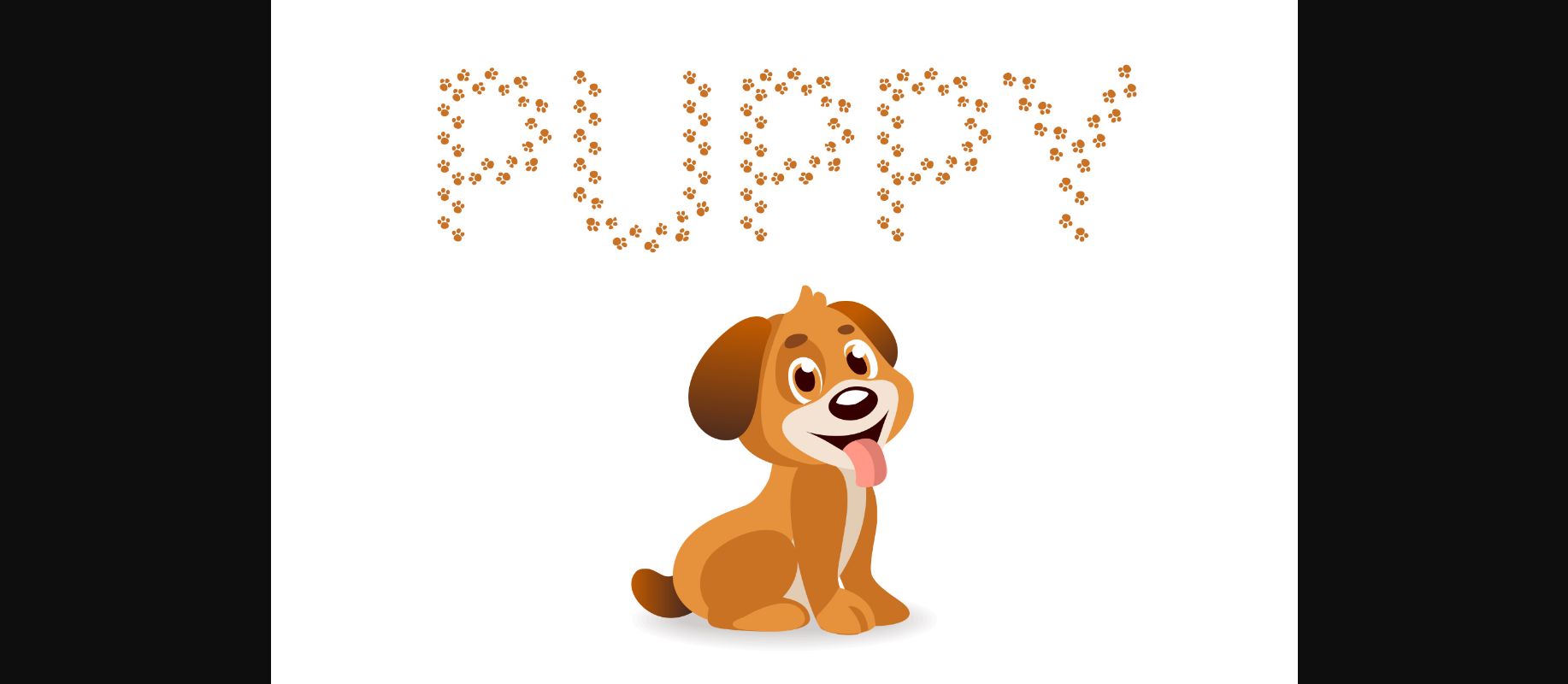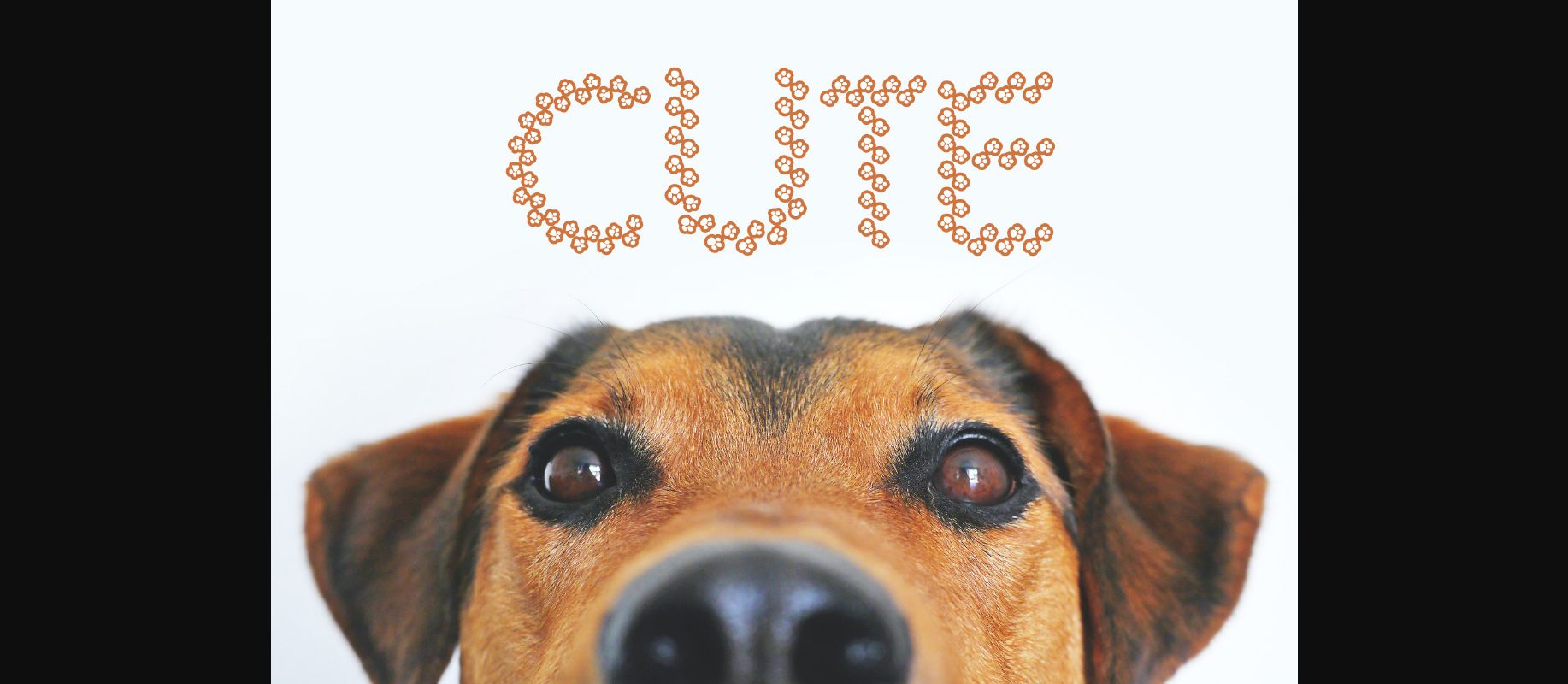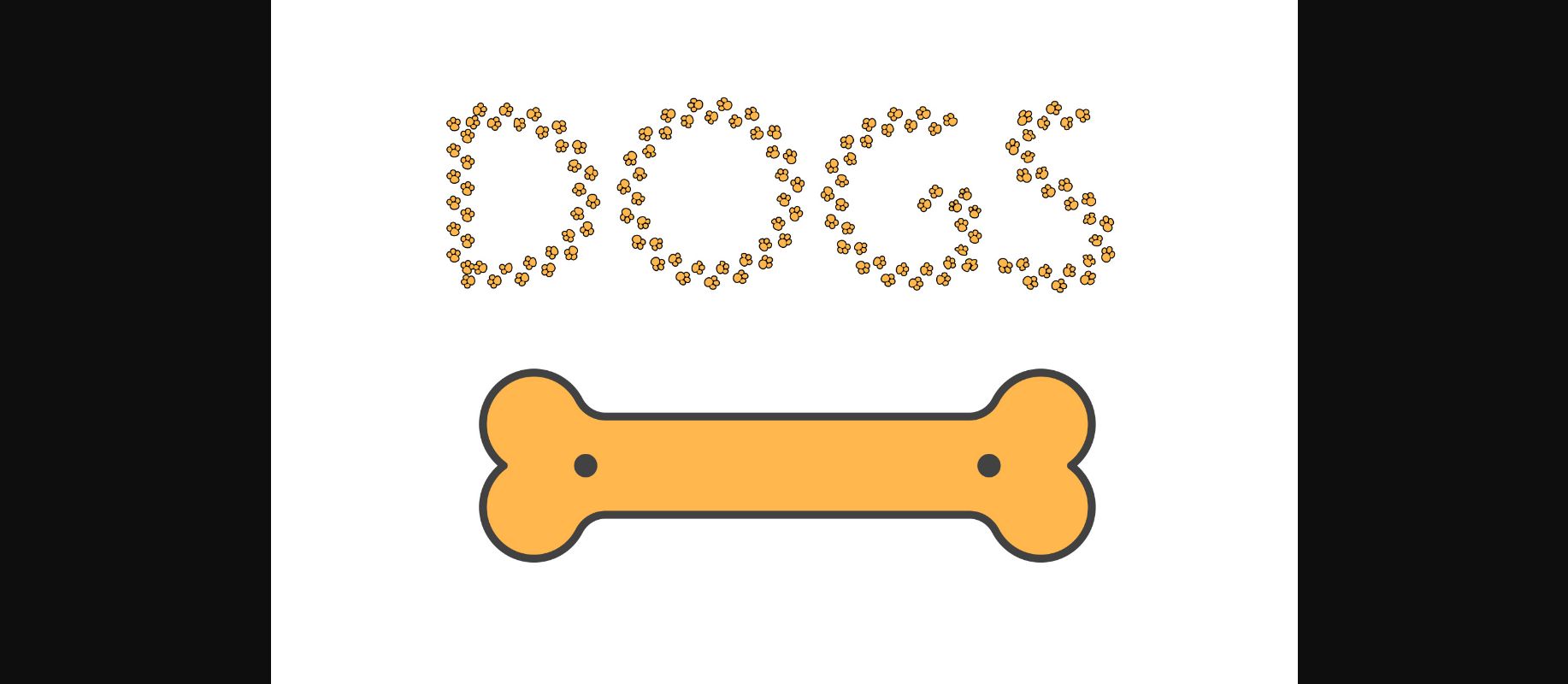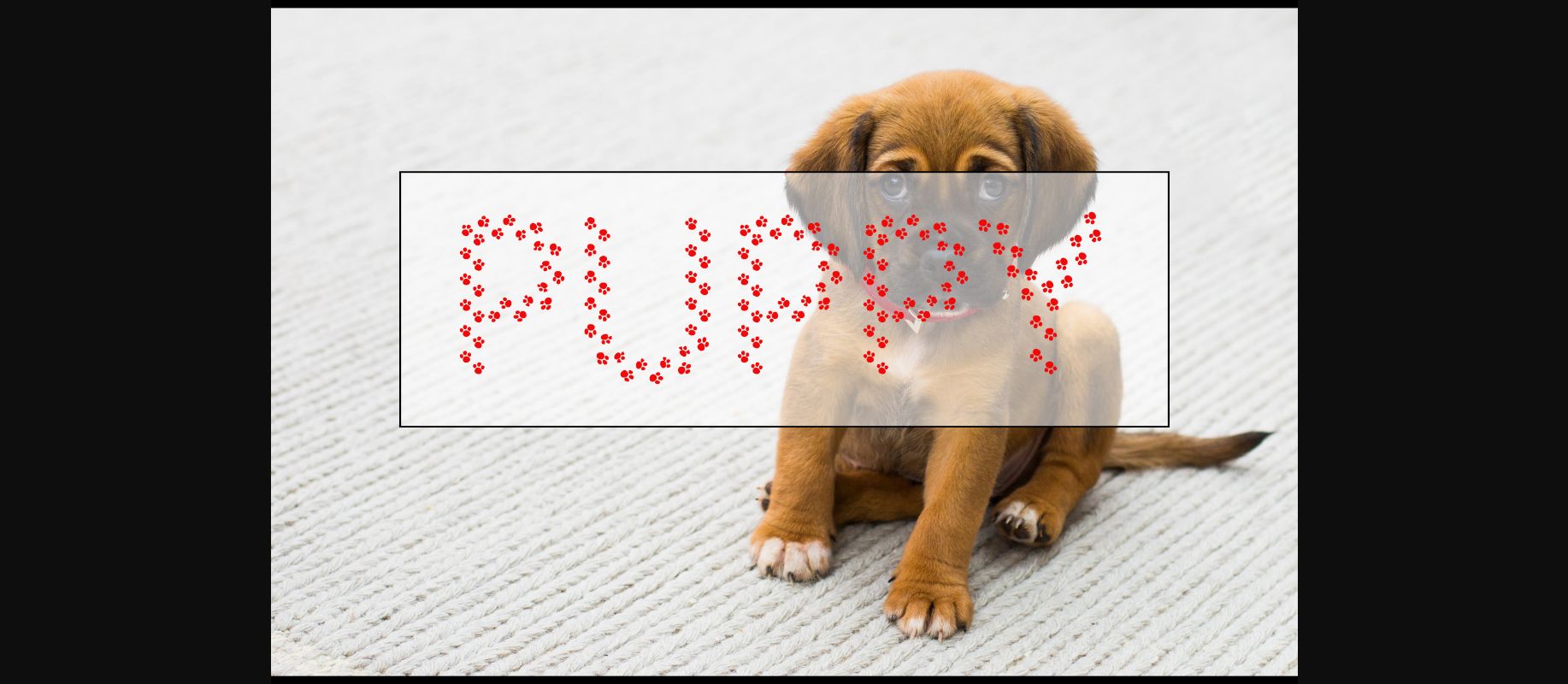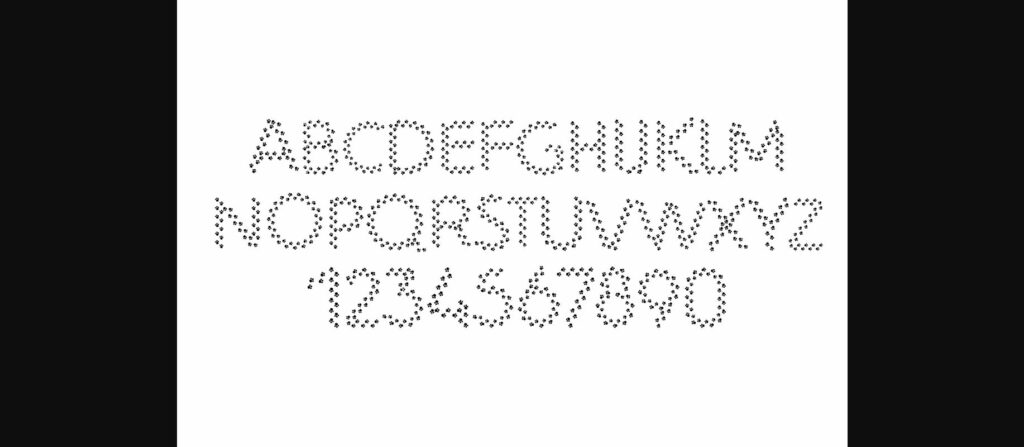
Puppy Font
About Puppy Font
Puppy is a cute decorative font. Each character is composed of puppy paw prints. It is great for posters, logos, packaging, school and education projects, websites, T-Shirts and more.